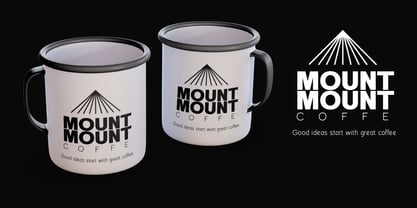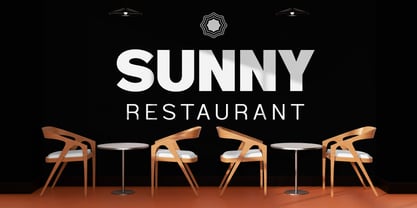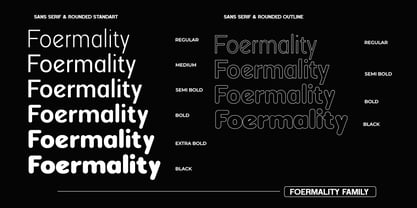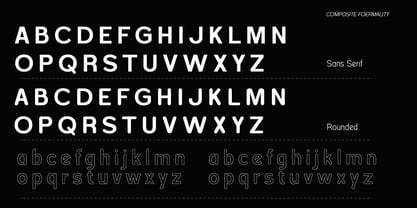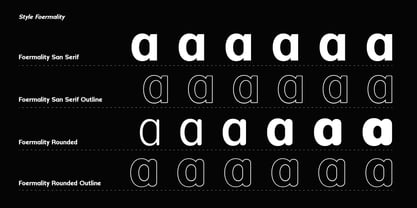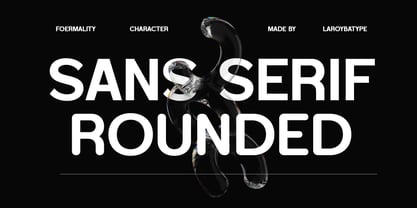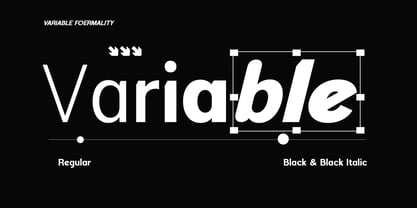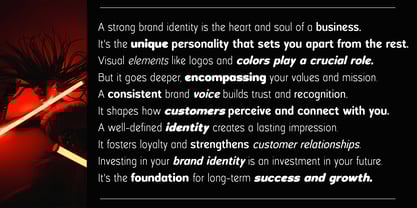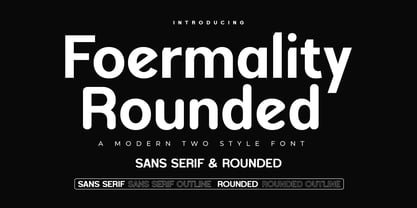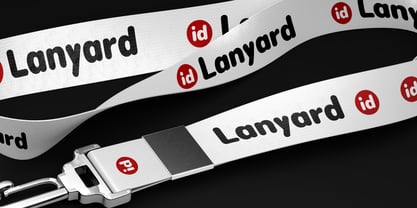
Foermality Sans Studio
by Laroyba Type
The Foermality Sans Studio Font Family was designed by Habib Abdur Rofi and published by Laroyba Type. Foermality Sans Studio contains 48 styles and family package options. More about this family
Foermality – A Refined Typeface for Professional Impact
Meet Foermality, a versatile sans serif font family designed to bring elegance and structure into any formal design setting. With 4 distinctive styles — Regular, Italic, Rounded, and Outline — Foermality offers a complete typographic toolkit for designers who value clarity, sophistication, and flexibility.
From corporate branding to editorial layouts, Foermality is engineered to leave a strong impression while maintaining a modern, minimal aesthetic. The Regular and Italic styles deliver confident professionalism, while the Rounded and Outline variations introduce a touch of warmth and creativity — all without sacrificing legibility.
Whether you're working on business presentations, university documents, product packaging, or digital interfaces, Foermality ensures your message is delivered with grace and authority.
Key Features:
• 4 Styles: Regular, Italic, Rounded, Outline
• Clean, formal structure with modern flair
• Excellent readability across sizes and media
• Suitable for branding, editorial, corporate, and display use
Step into the world of clarity and class — let Foermality elevate your design voice.